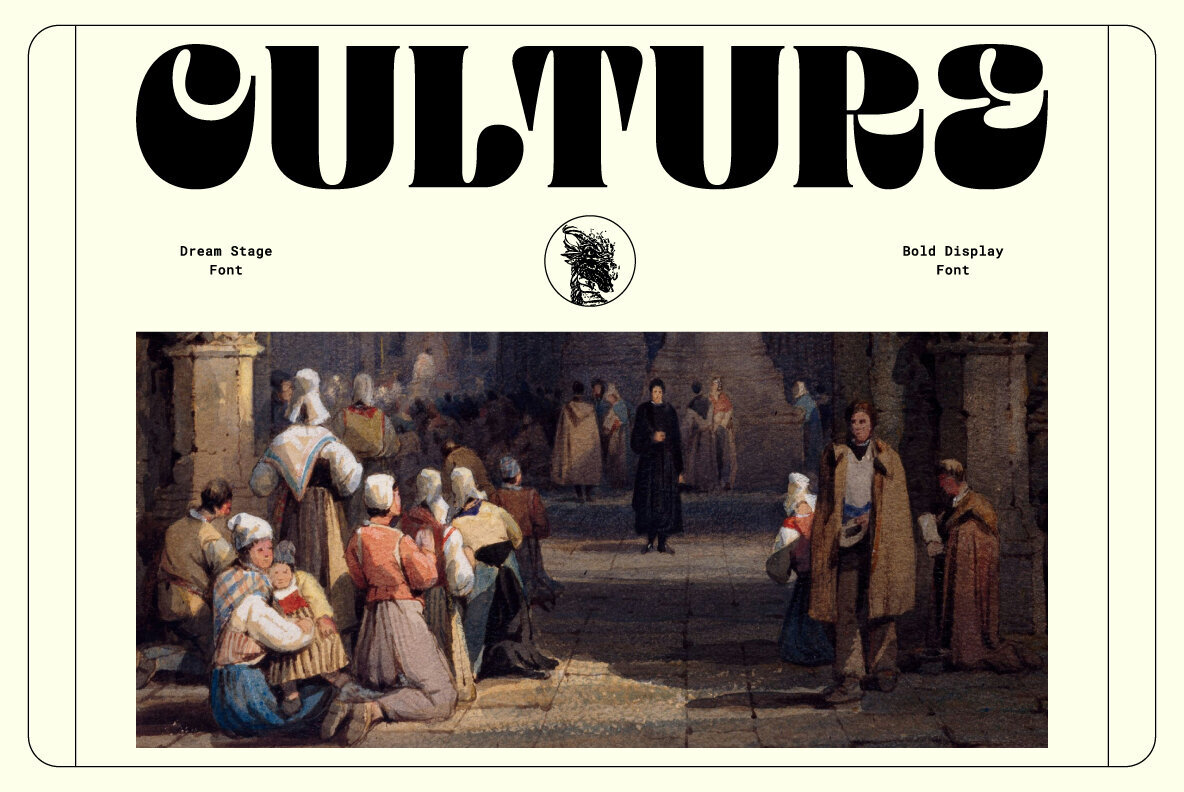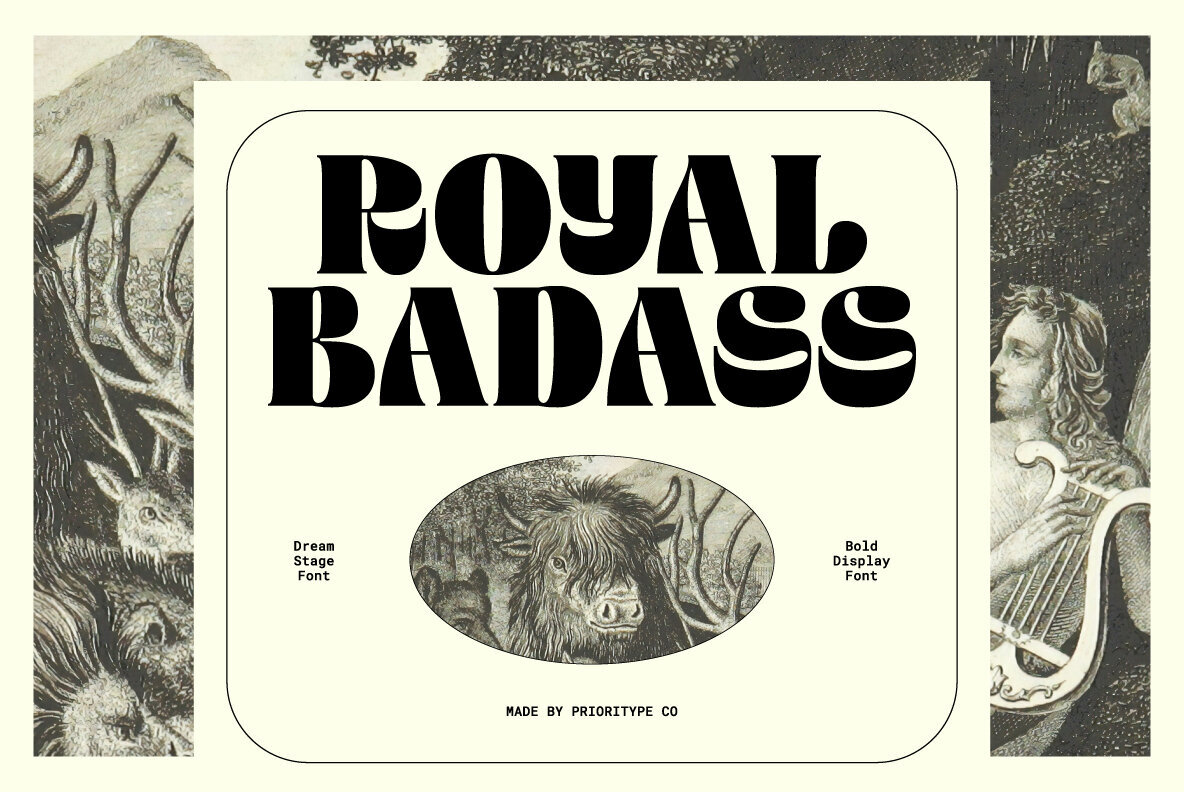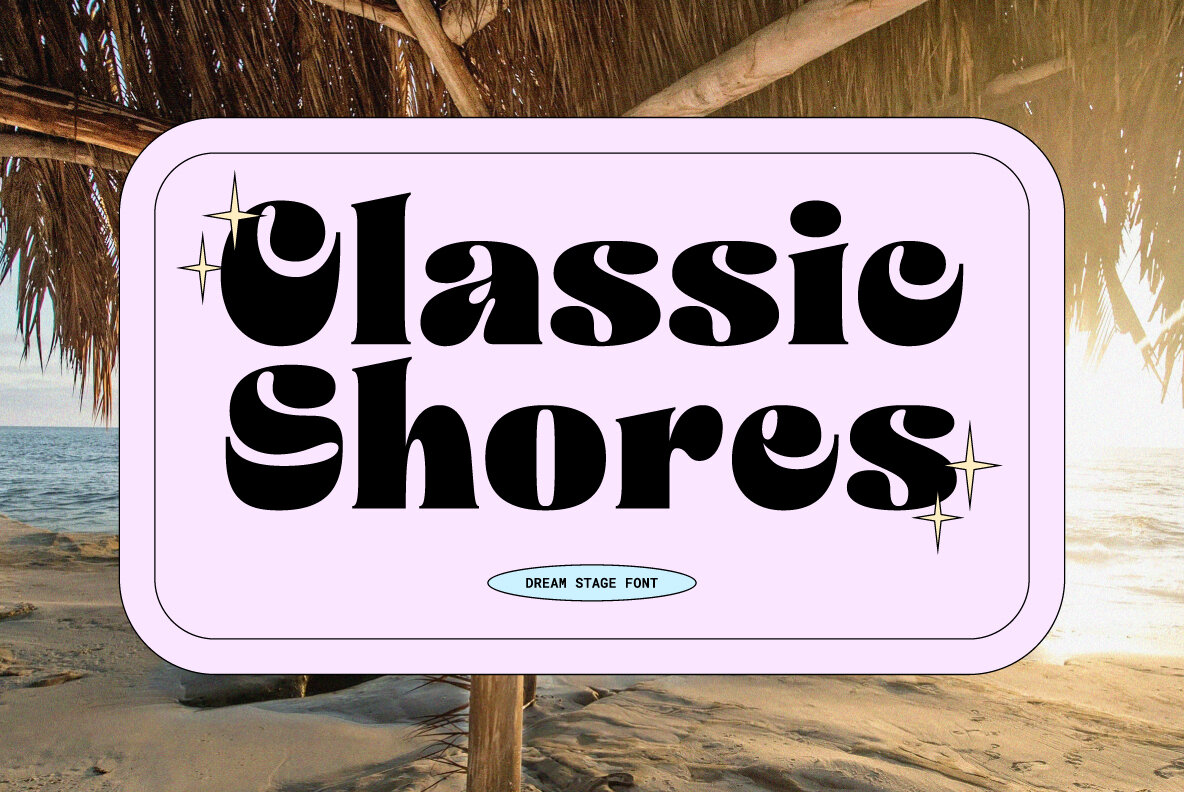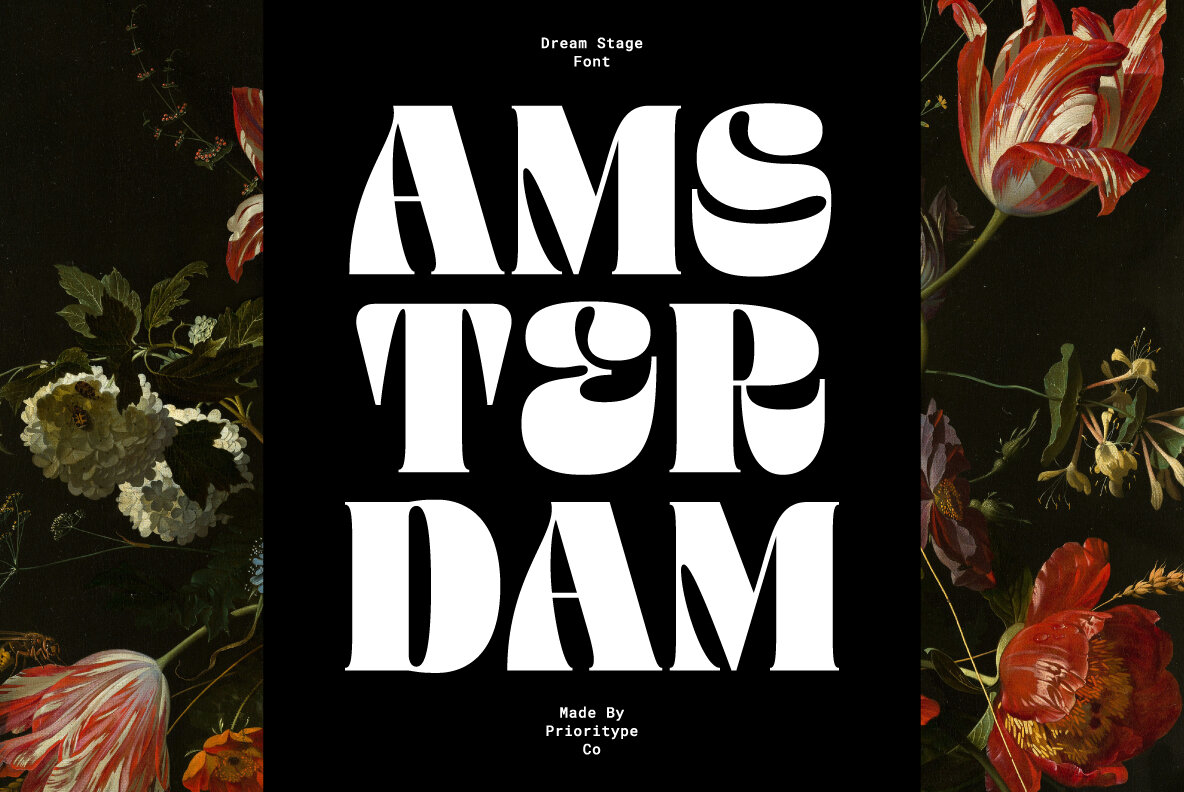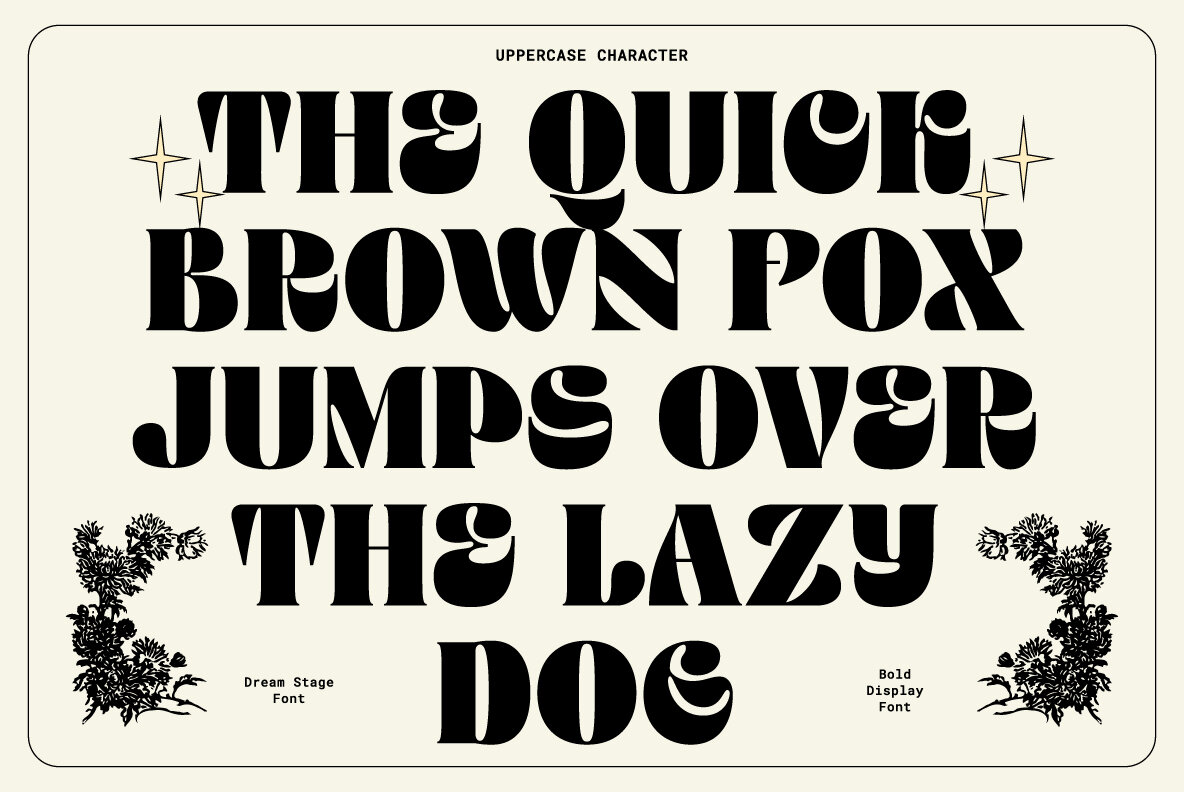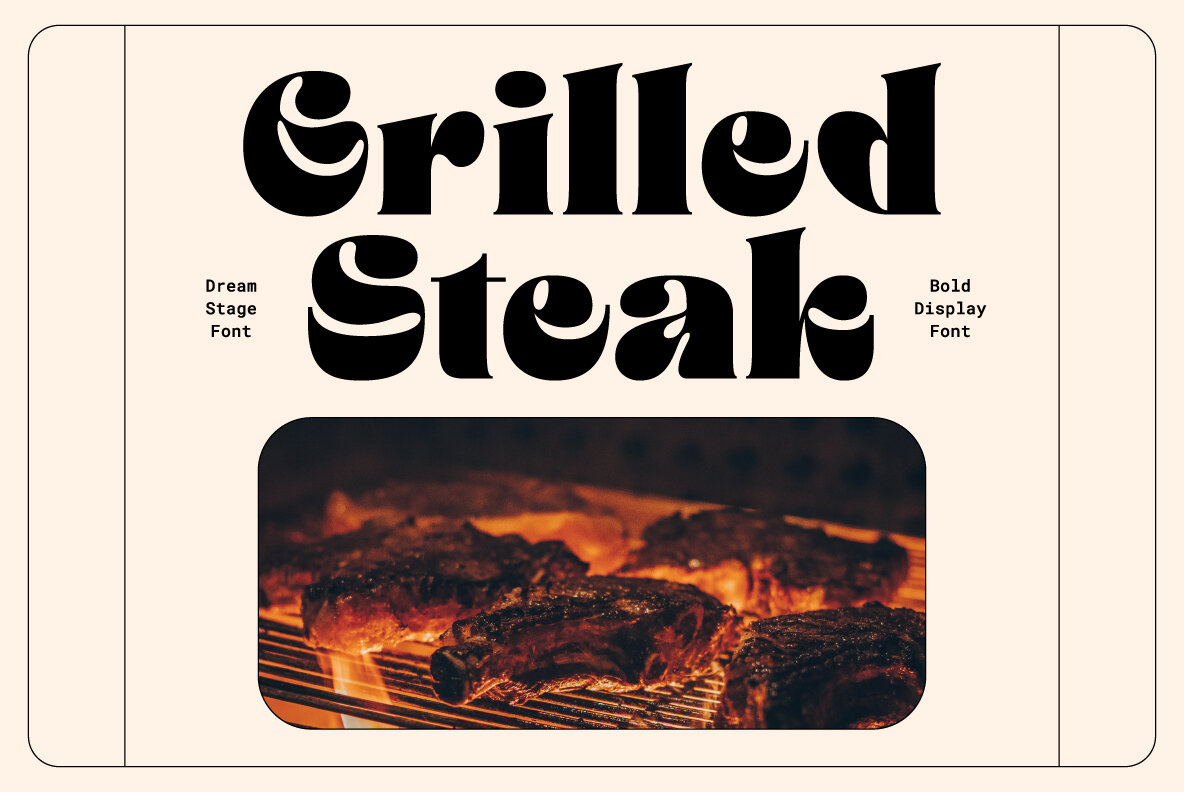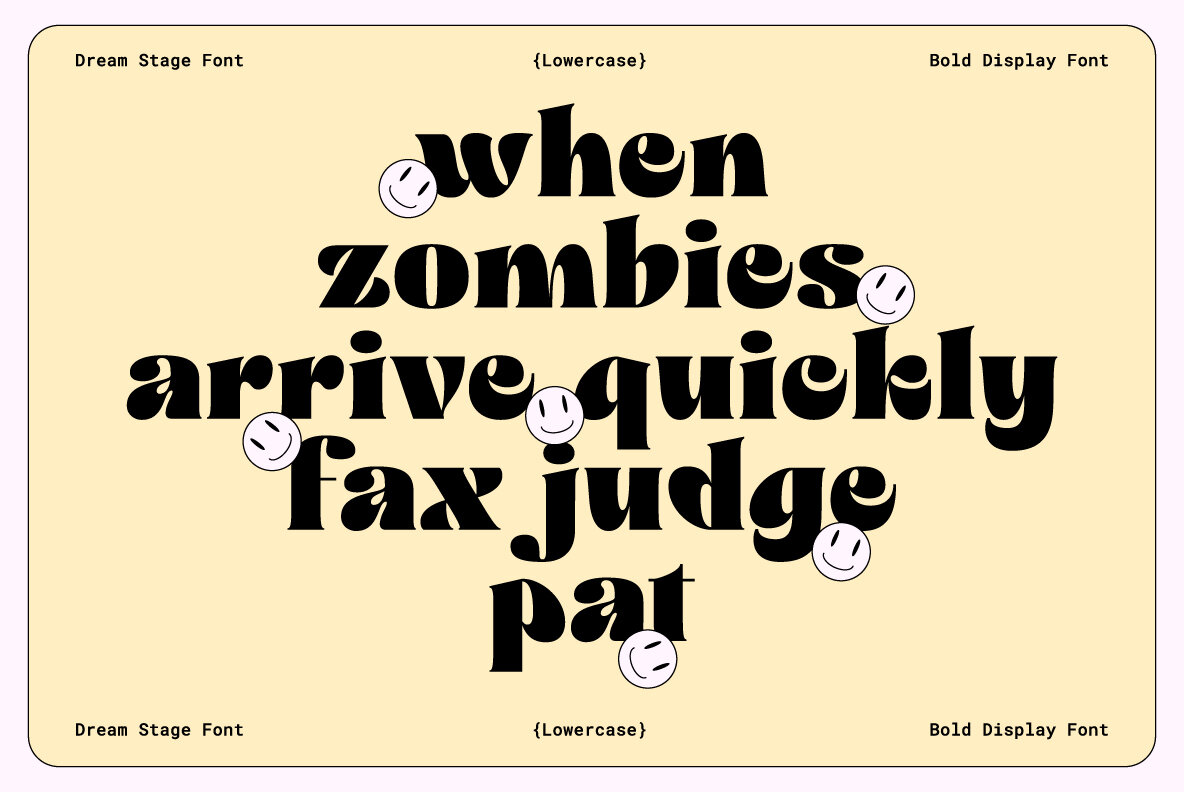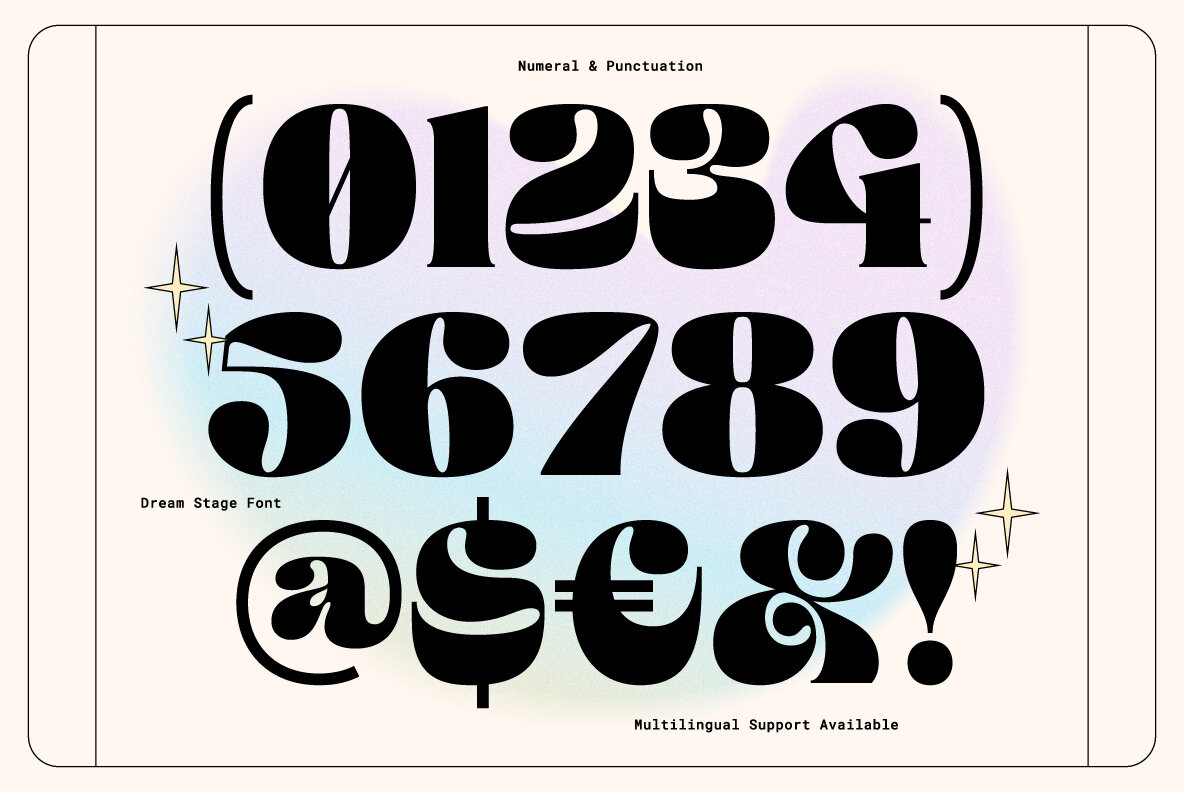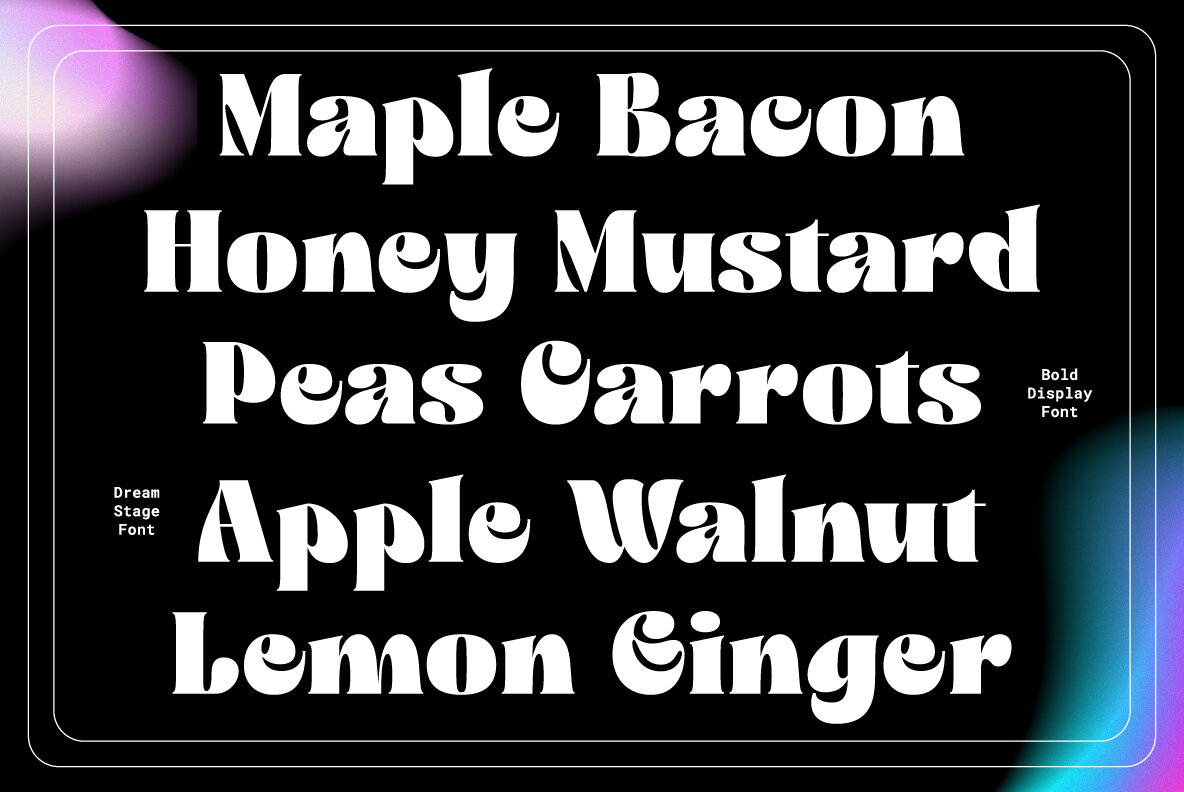
Dream Stage Font
Dream Stage Regular
Dream Stage is a bold display font that captivates with its striking and authentic characters. Each letter exudes strength and authenticity, making it an exceptional choice for posters, logos, and branding projects. This font commands attention and leaves a lasting impression, embodying confidence and style to elevate your designs.Dream Stage: Bold Display Font Known for Impact